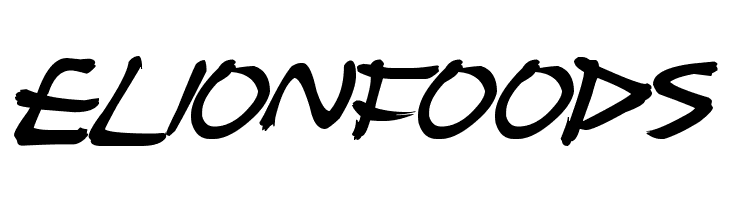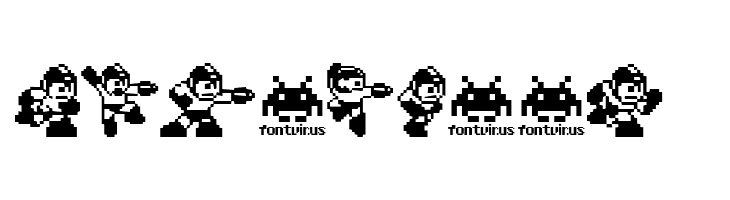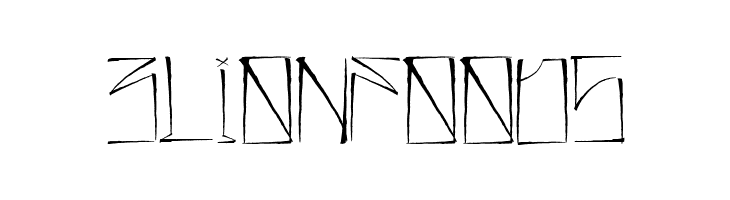
A bold, brush-style font with a dynamic, adventurous feel.
Bold, geometric icon set for signage and wayfinding.
Bold, high-contrast rally and racing symbol icon set.
Pixel-art font using 8-bit video game character sprites.
Cartoon pirate-themed decorative font with unique illustrations for each character.
Pixelated pictograph font with ancient and digital influences.
A nautical-themed, hand-drawn font with angular, rustic characters.
A set of bold, clear directional arrow symbols for road signage.
A playful, pirate-themed decorative font with a hand-drawn appearance.